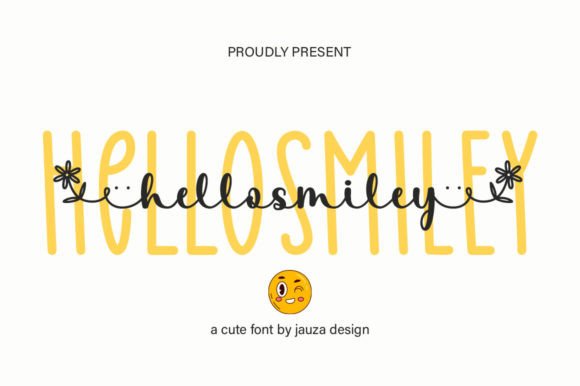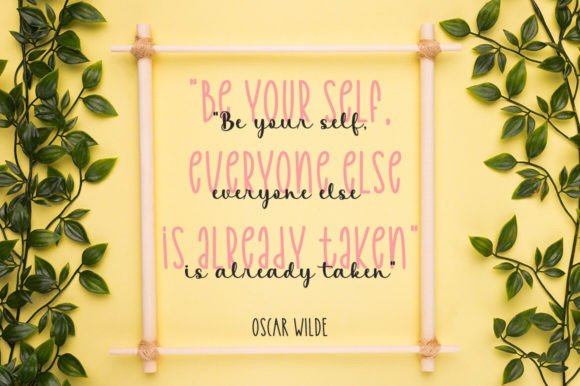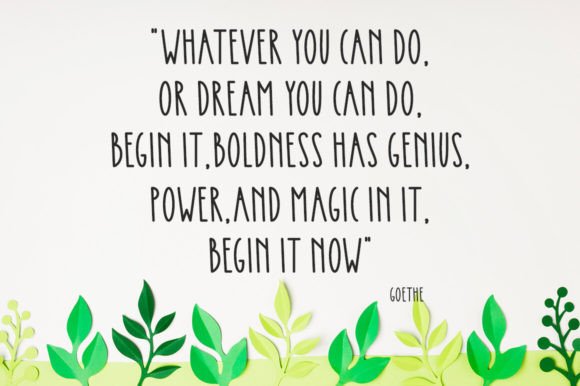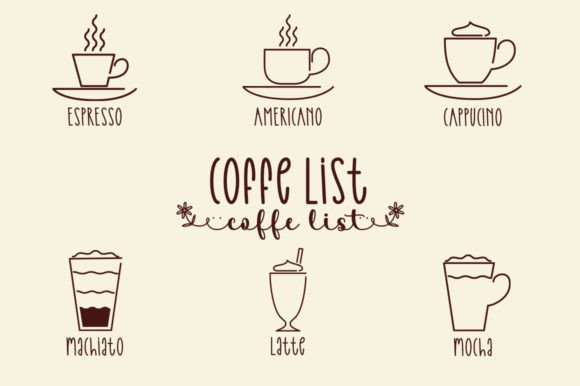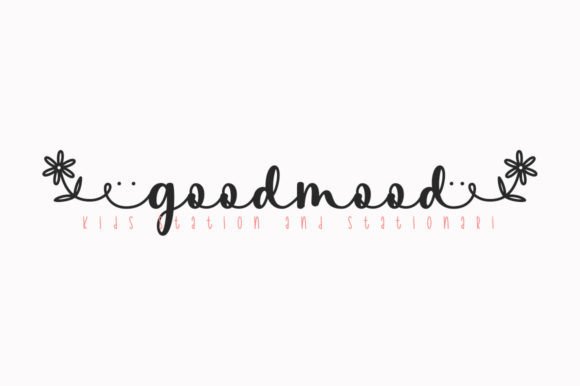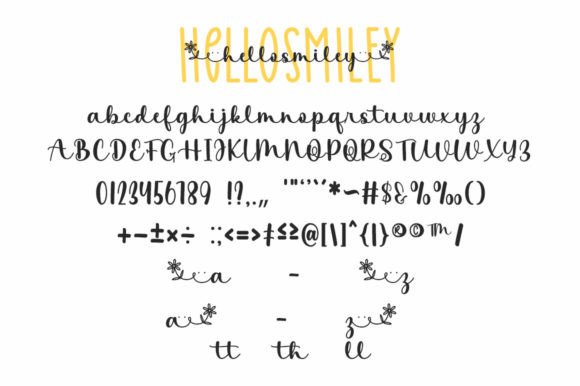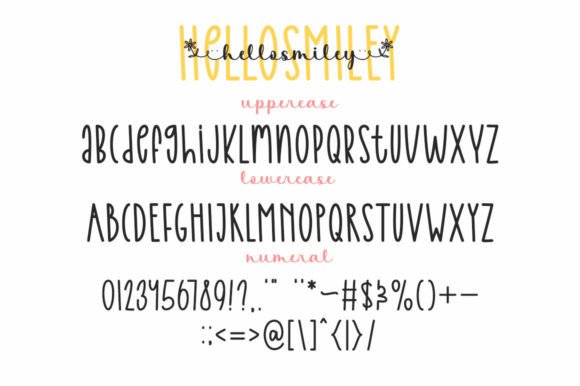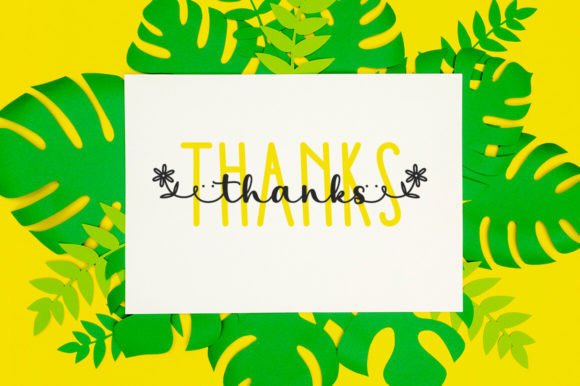
Hello Smiley is a lovely duo font (sans serif and script). Featuring characters that dance along the baseline, this font will add a luxury spark to any design project that you wish to create! Hello Smiley is PUA encoded which means you can access all of the glyphs and swashes with ease!
Hello Smiley Font